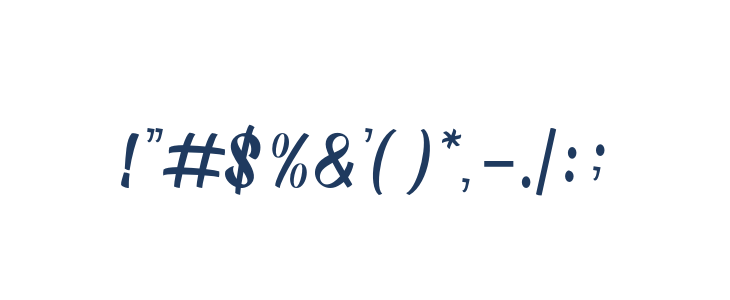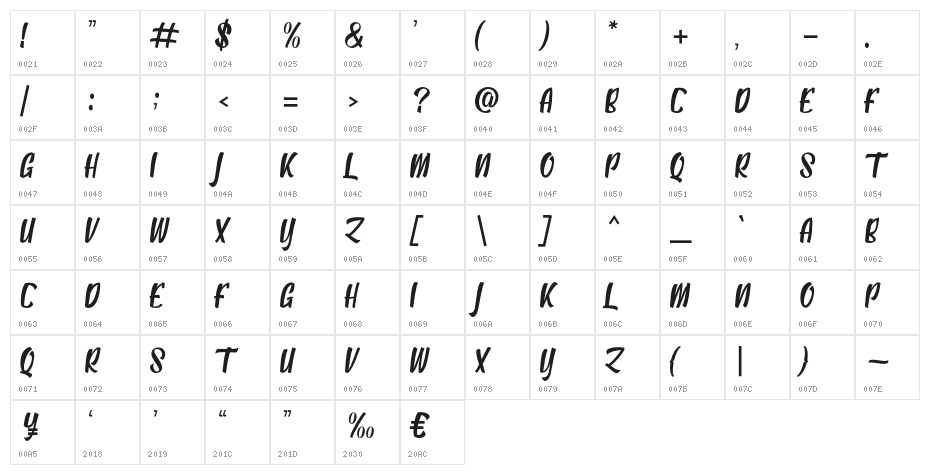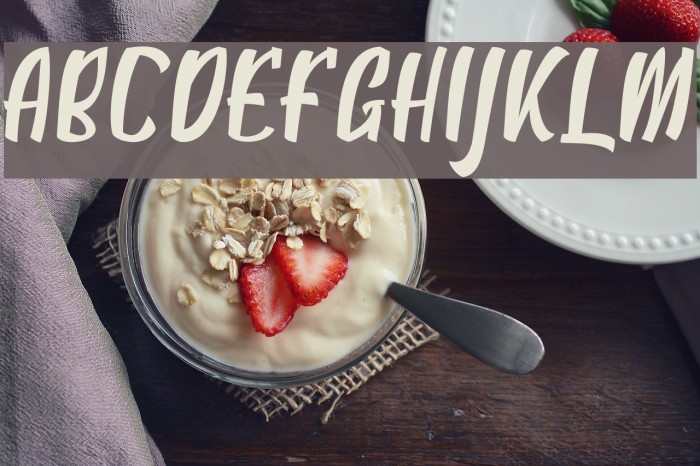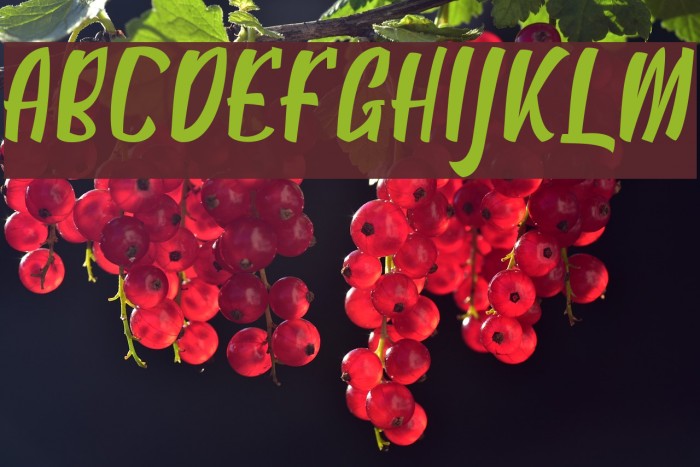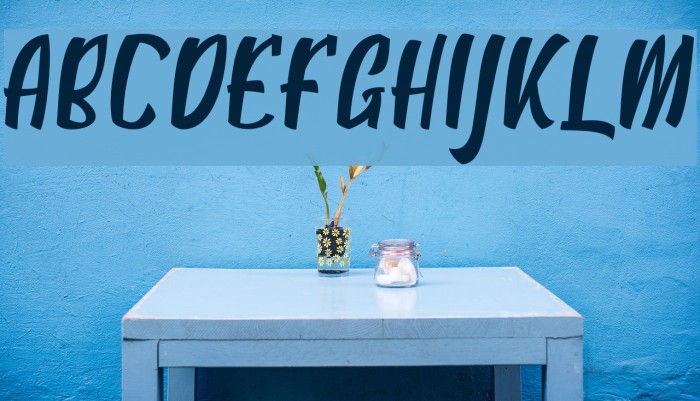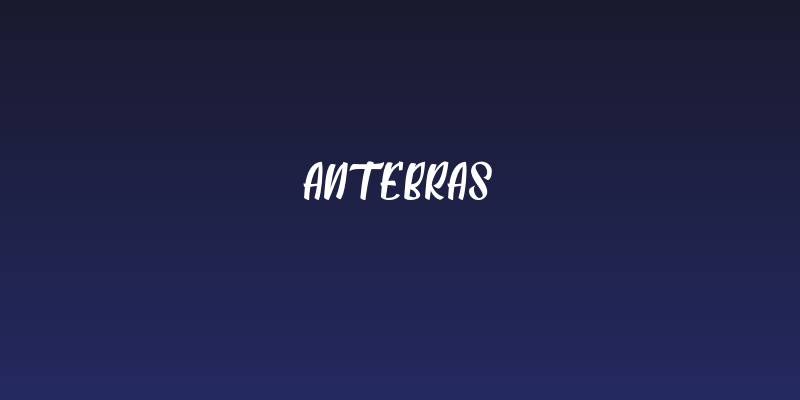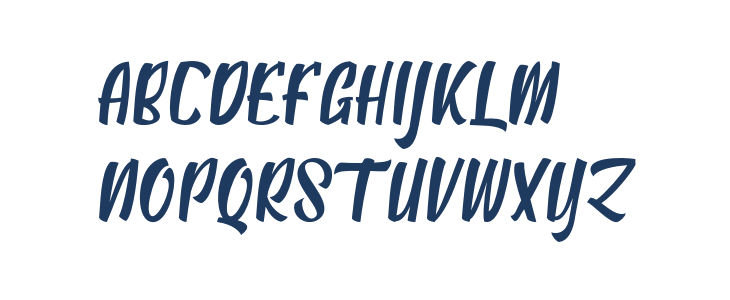
Antebras Font
Antebras Description
This font features a bold and dynamic script style with a strong presence. The characters are slightly slanted, giving a sense of movement and fluidity. The strokes are thick and consistent, providing a robust and impactful appearance. The uppercase letters are particularly striking, with unique flourishes that add a touch of elegance. The lowercase letters maintain the same boldness, ensuring readability while retaining the decorative flair. The numerals and special characters are designed to match the overall style, making this font versatile for various uses.
| Proposed Projects | Ideal for branding, logo design, posters, and headlines where a bold and stylish impact is desired. |